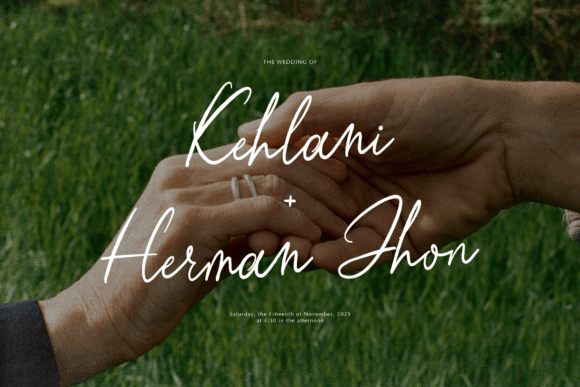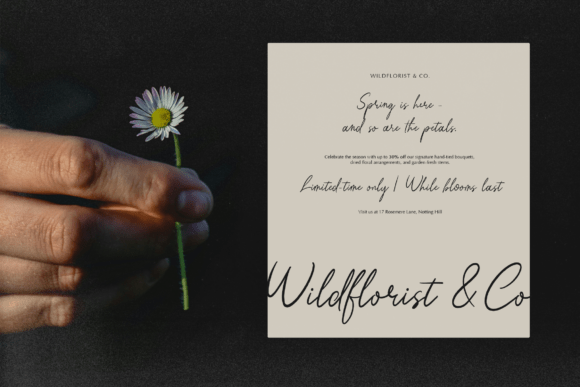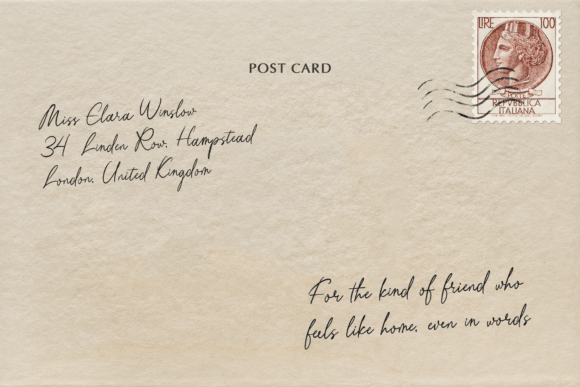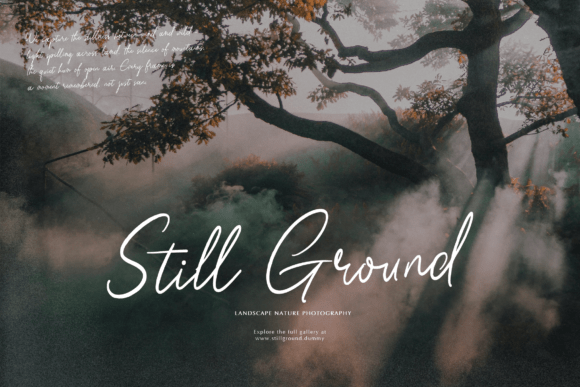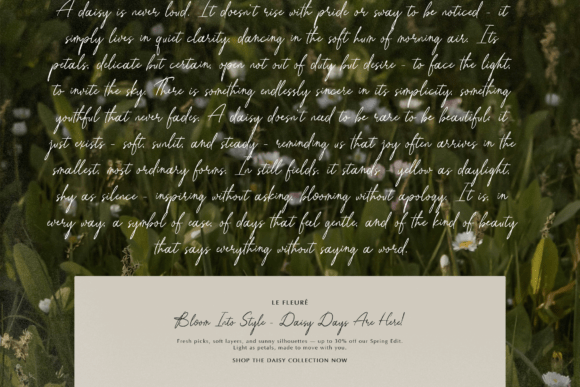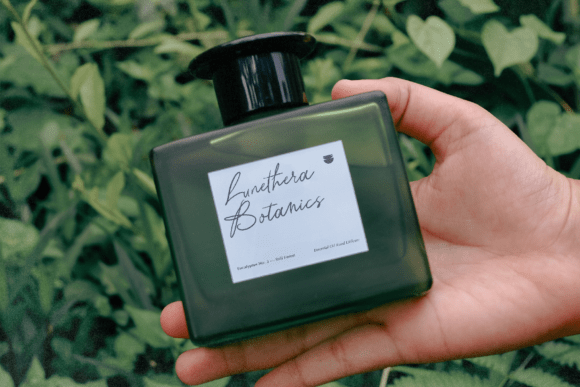
Introduction to Sekar Wangi Font Font Font
Fonts play a crucial role in design, and the Sekar Wangi Font Font font is a typeface that brings both character and versatility to any project. Whether you’re working on a branding project, a website, or a print design, the Sekar Wangi Font Font font offers a unique style that can elevate your work.
Softspoken is a gorgeous and dainty font, suitable for any projects such as: logos, branding projects, homeware designs, product packaging, mugs, quotes, posters, shopping bags, t-shirts, book covers, name card, invitation cards, greeting cards, label, photography, watermark, special events, and all your other lovely projects that need a Casual Handwritten Font taste.
Softspoken is a gorgeous and dainty font, suitable for any projects such as: logos, branding projects, homeware designs, product packaging, mugs, quotes, posters, shopping bags, t-shirts, book covers,
Key Features of Sekar Wangi Font Font Font
Why Choose Sekar Wangi Font Font Font?
The Sekar Wangi Font Font font is more than just a typeface – it’s a design tool that helps you communicate your message with style and clarity. Its unique character set and versatile design make it suitable for a wide range of applications, from elegant invitations to bold headlines.
With its carefully crafted letterforms and balanced proportions, the Sekar Wangi Font Font font ensures readability and visual appeal across all mediums.
What makes Sekar Wangi Font Font font special?
The Sekar Wangi Font Font font stands out with its unique design, exceptional readability, and versatility across various design applications.